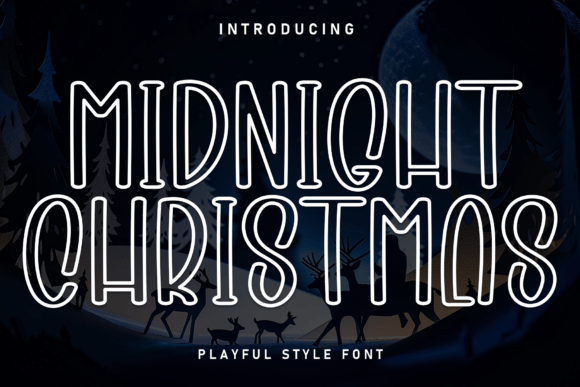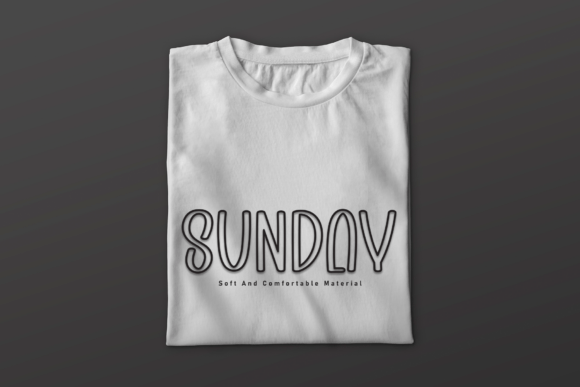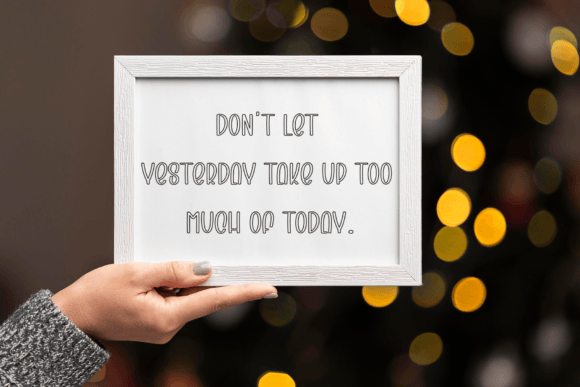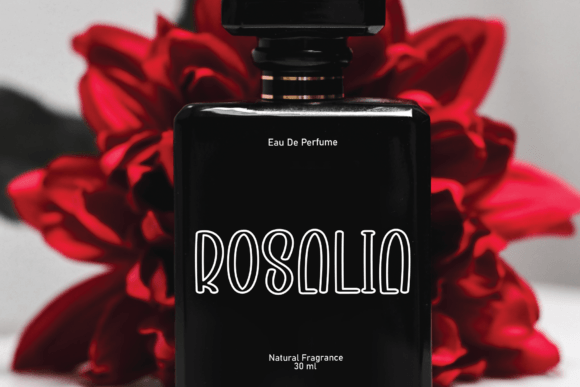
Midnight Christmas Font
About the Midnight Christmas Font
Experience the unique personality of Midnight Christmas Font, a font designed for impact. Midnight Christmas is a playful, outline font with a festive feel. Its bold and fun design makes it perfect for holiday decorations, invitations, and greeting cards, bringing a cheerful and lighthearted vibe to your Christmas projects.
Midnight Christmas excels in headline usage, short celebratory messages, and packaging design where its playful nature shines. It’s ideal for projects targeting a young, festive audience, such as children’s books or Christmas-themed branding for confectionery. However, its highly decorative style is unsuitable for body text or UI elements; the outlined forms would hinder readability in extended passages.
Pairing it with a clean sans-serif like Helvetica Neue for body copy provides excellent contrast, maintaining legibility while retaining the festive spirit. For a more elegant feel, consider a classic serif font such as Garamond for supporting text or brand elements. Avoid pairing it with other highly decorative fonts, which would create visual clutter.
The font’s core personality is undeniably cheerful and bold, making it perfect for projects needing a fun, eye-catching, and instantly festive feel. Its strong visual impact makes it a powerful choice for conveying a sense of holiday cheer and lighthearted celebration.